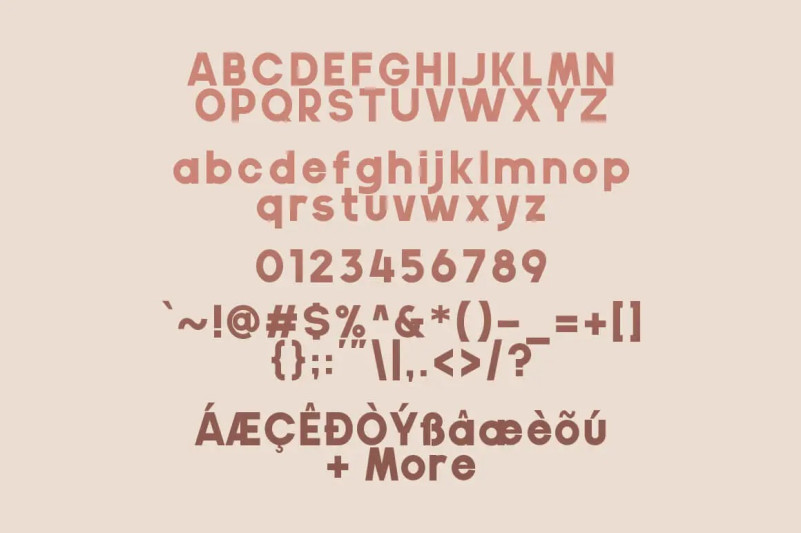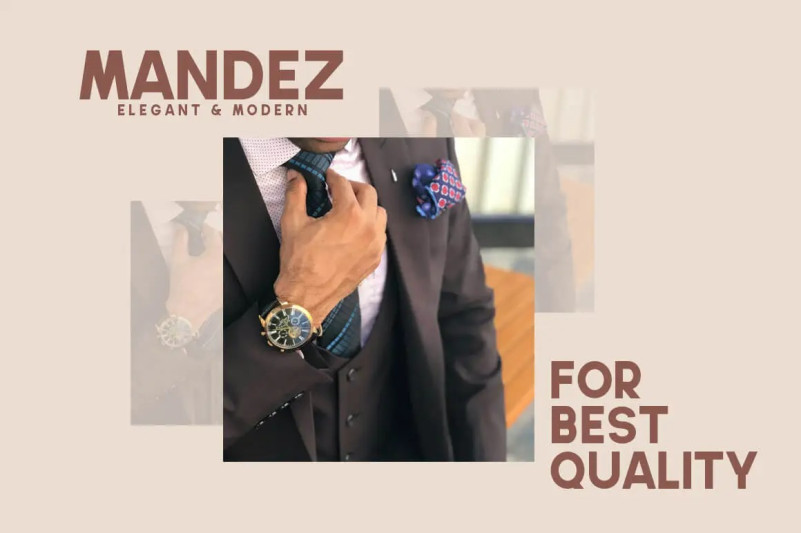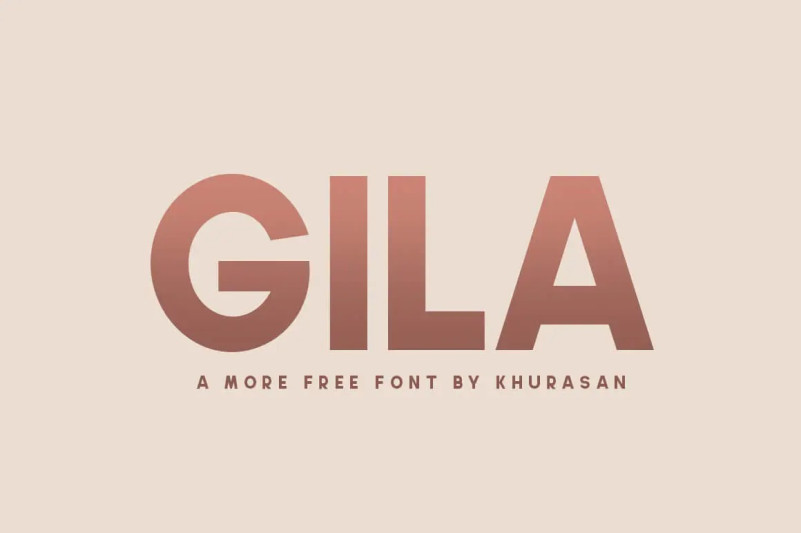
Gila Sans Serif Font, is a modern sans serif font. It’s perfect for posters, logos, magazines, cover books, banners, and much more!
| Designer Name: | Khurasan |
| Classification: | Sans Serif Fonts, Style / Aesthetic Fonts |